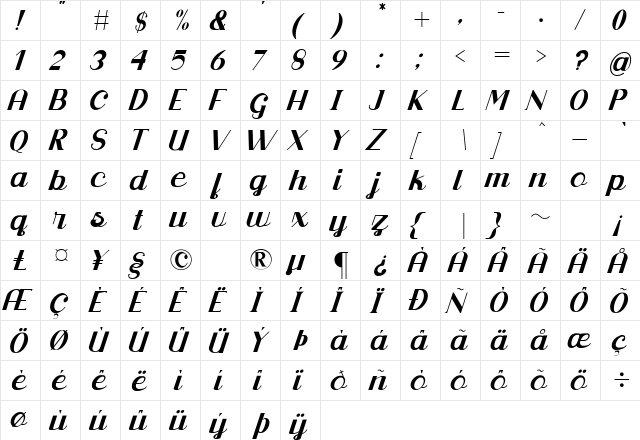
Lalytta Regular
| Foundry | AmruID |
| Designer | AmruID |
Design Context for Lalytta Typeface
Lalytta takes a measured approach to typography — its balanced proportions and neutral character make it a reliable workhorse for both digital and print work.